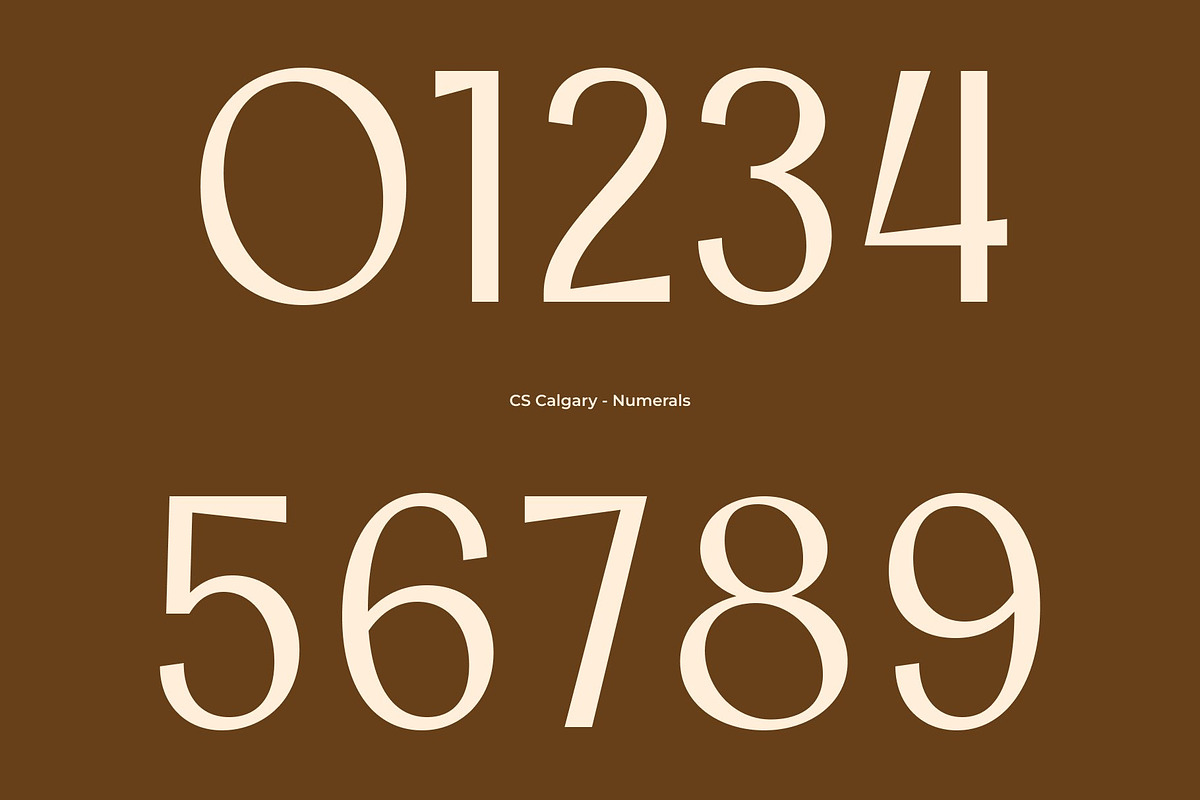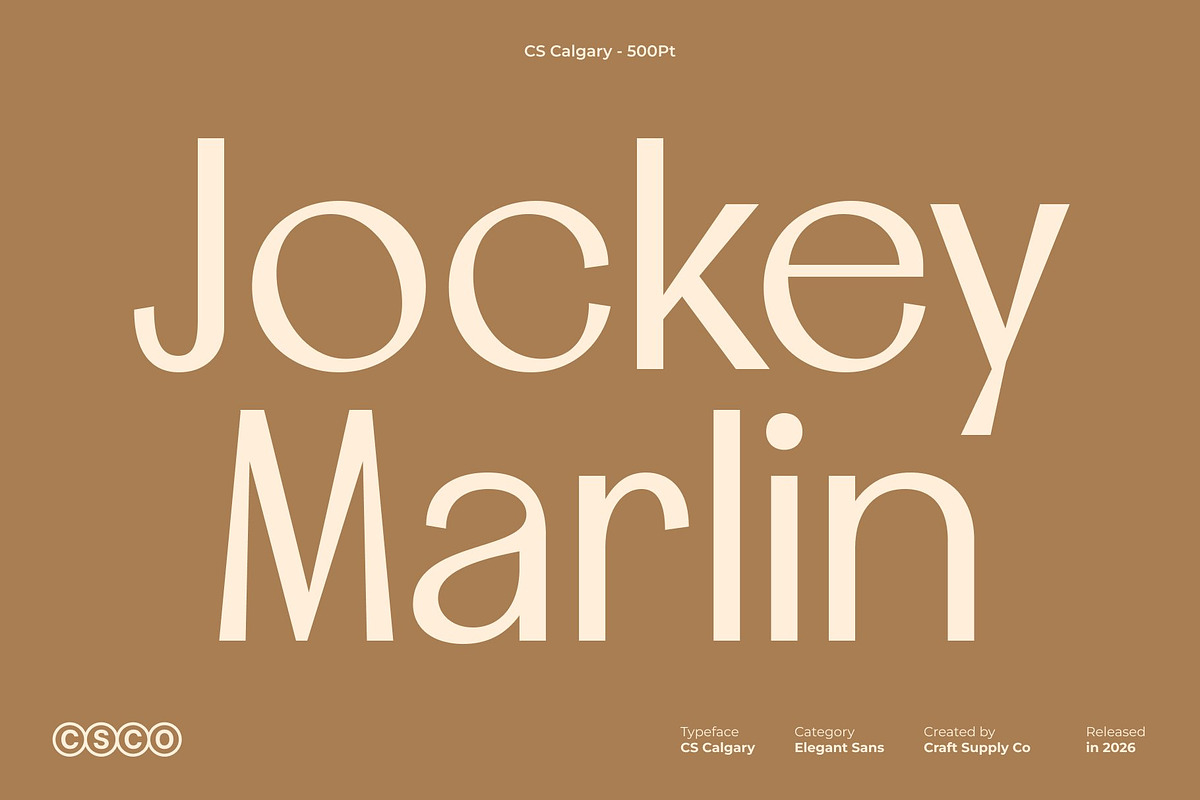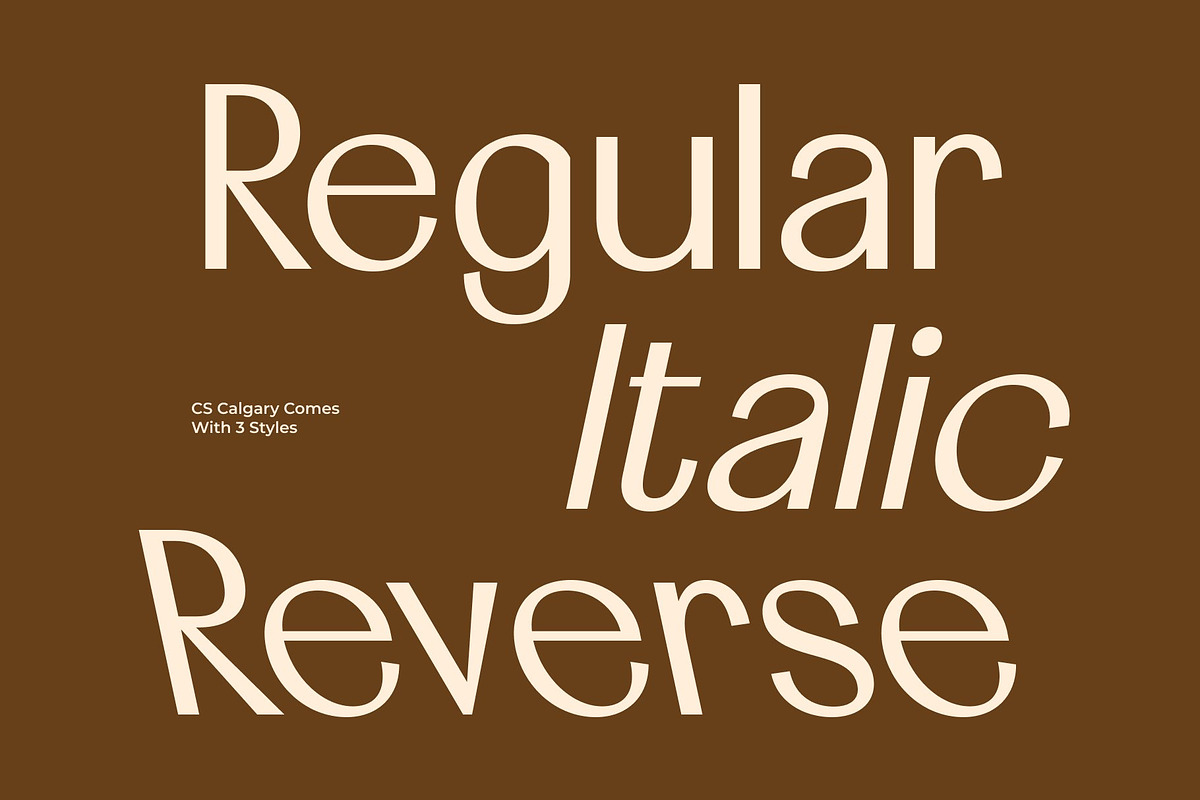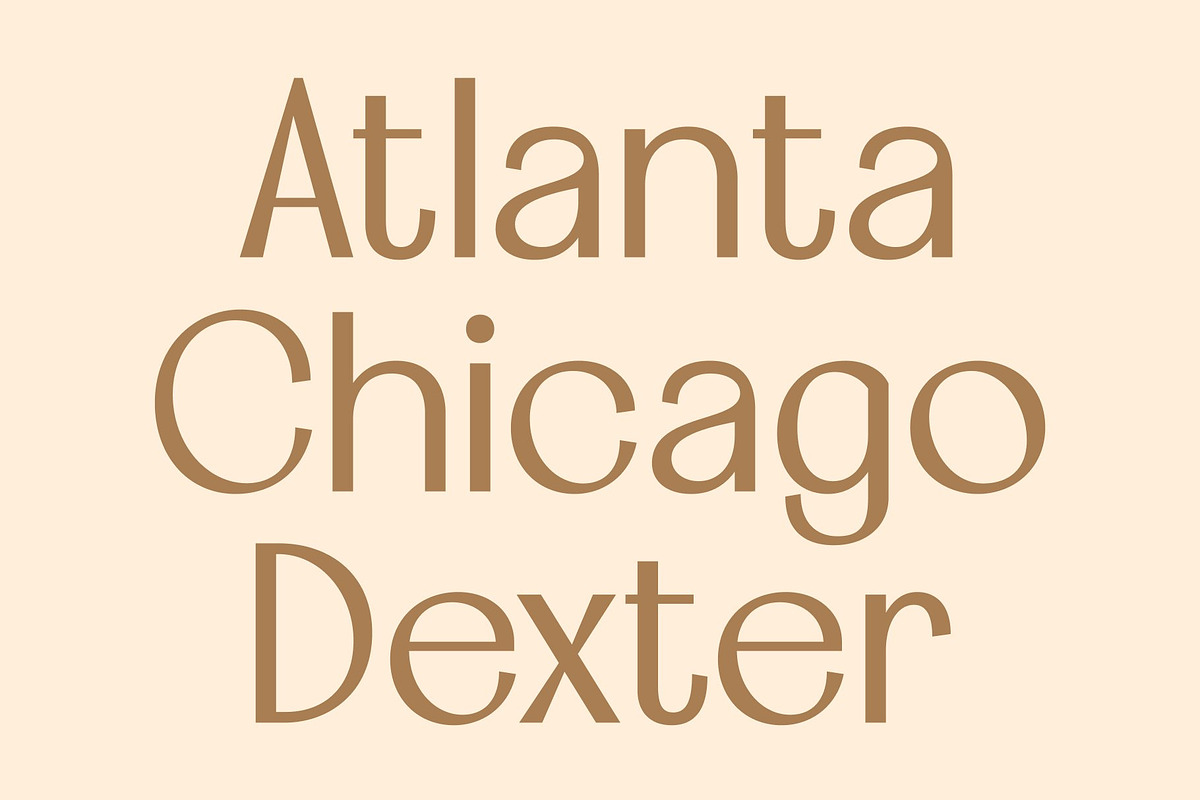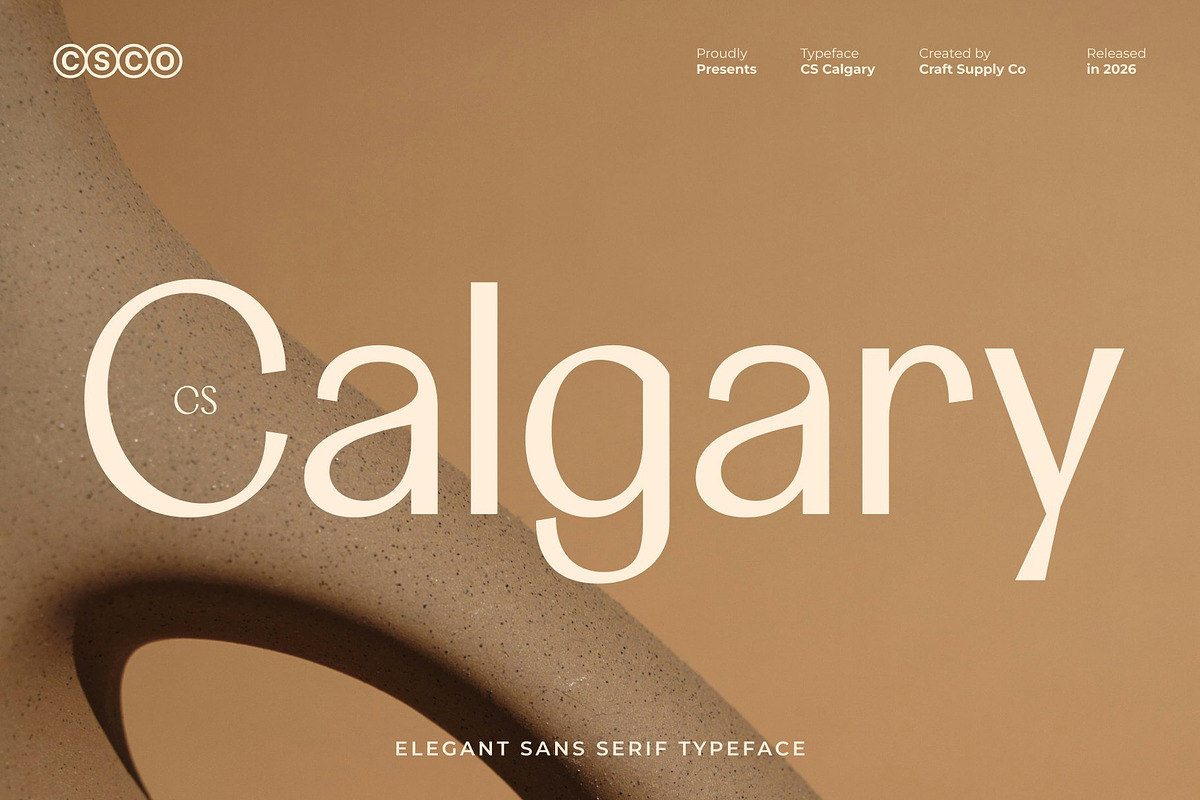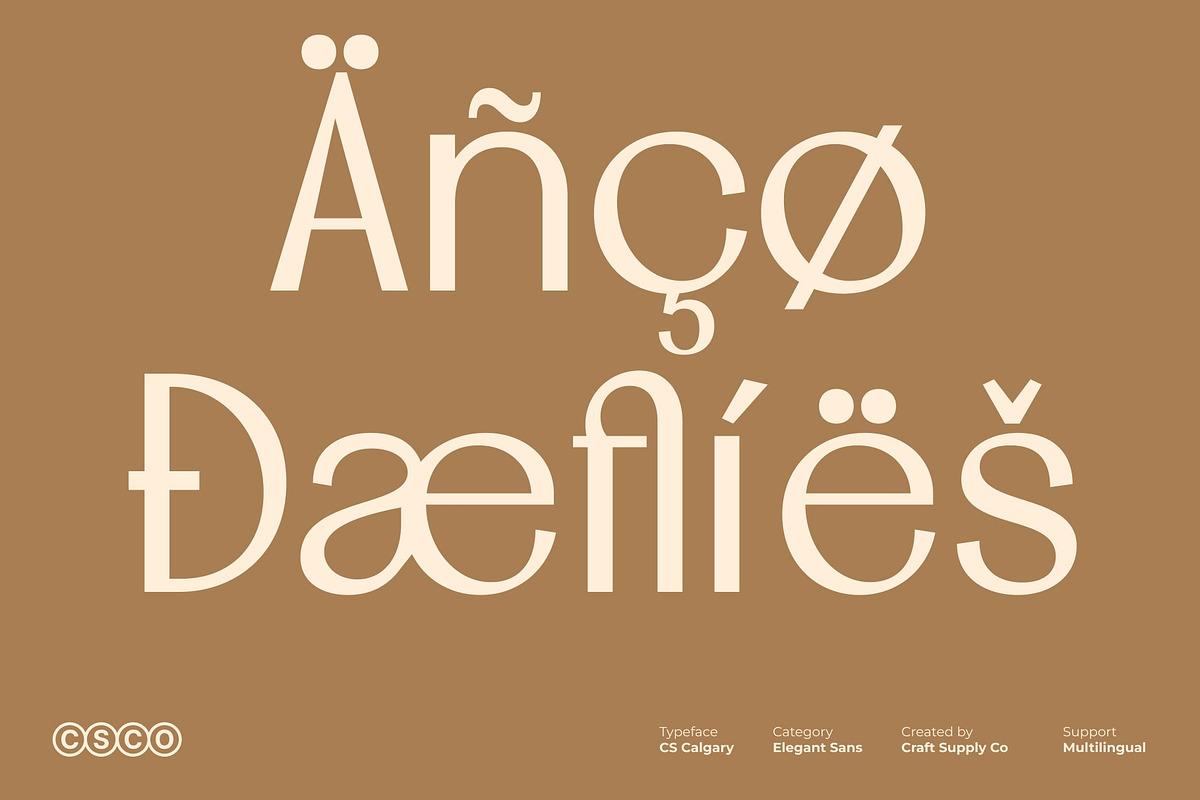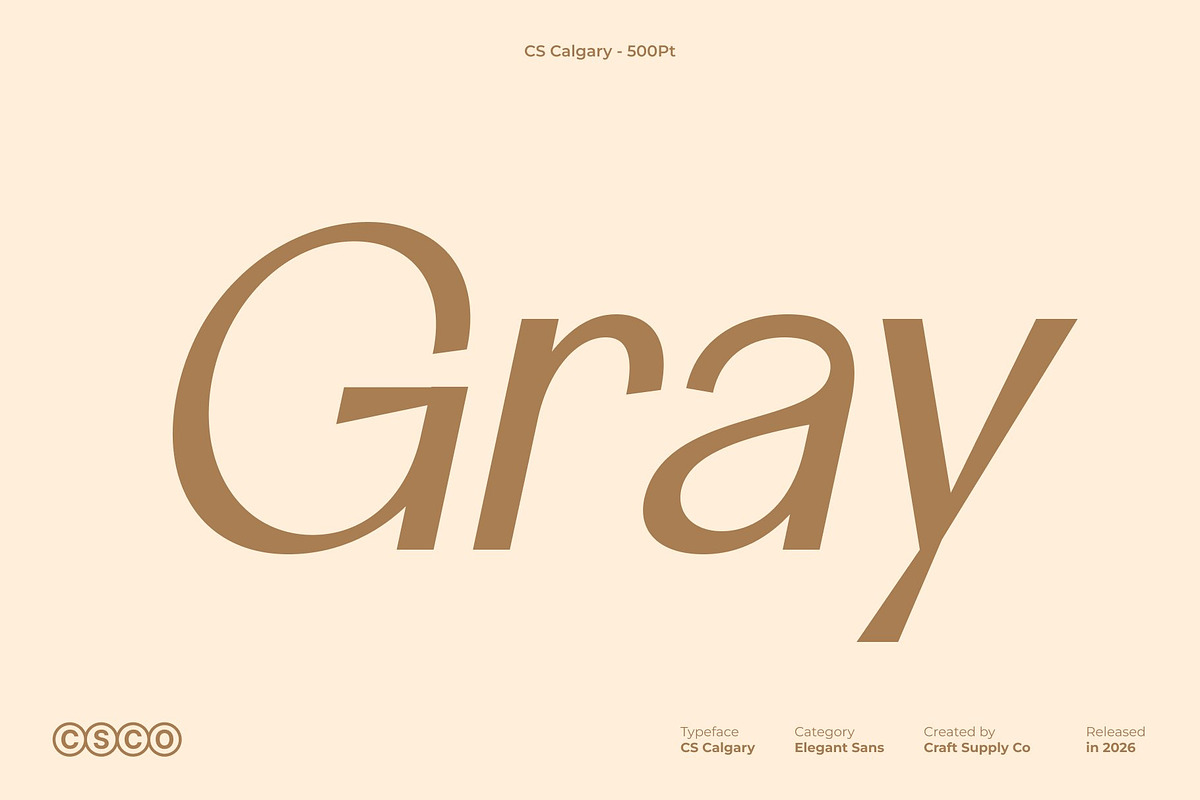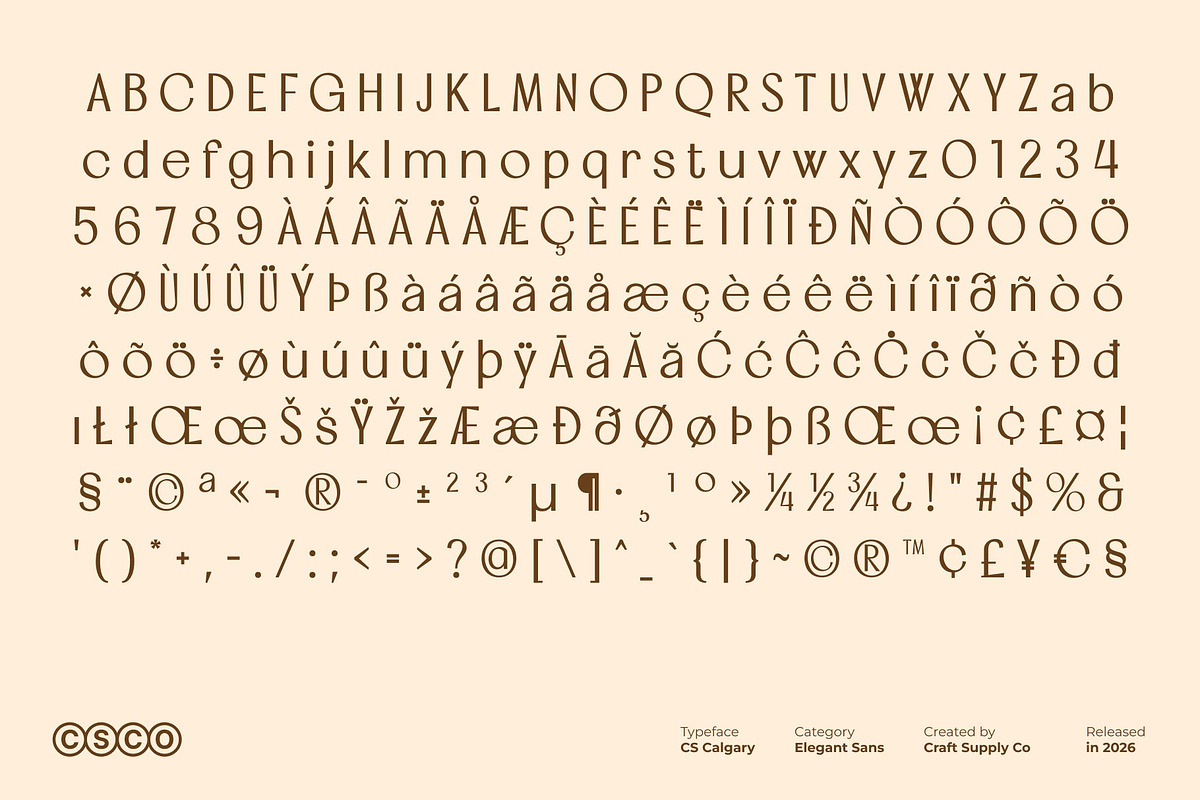
CS Calgary – Elegant Sans Serif
CS Calgary – Minimalist Elegance with Modern Luxury
Clean Modern Sans Serif with Refined Sophistication This is a clean, modern sans serif font designed to express elegance, luxury, and refined simplicity. Built on a minimalist foundation, this typeface delivers a polished and professional appearance that feels timeless and confident. Its balanced proportions and smooth construction create a sophisticated visual tone, making an ideal choice for high-end and modern design projects.
Minimalist Structure with Classy Appeal The strength of lies in its simplicity. Clean lines, consistent stroke weight, and generous spacing give the font a calm and uncluttered presence. This minimalist approach allows content to breathe while maintaining a classy and luxurious feel. Subtle refinements in the letterforms add sophistication without unnecessary ornamentation, resulting in a font that feels premium and effortlessly elegant.
Modern Clarity for Professional Communication This font offers excellent legibility and clarity across digital and print applications. Its modern sans serif design ensures a professional appearance, making it suitable for corporate identities and contemporary branding. The refined character of the font helps communicate trust, quality, and credibility, making it an effective tool for brands that value precision and modern aesthetics.
Perfect for Luxury Branding and Minimalist Design Designed for versatile high-end use, this font is perfectly suited for luxury and minimalist brands, modern company logos, premium product packaging, and clean, professional websites. Its elegant simplicity enhances brand identity while maintaining a strong visual presence.